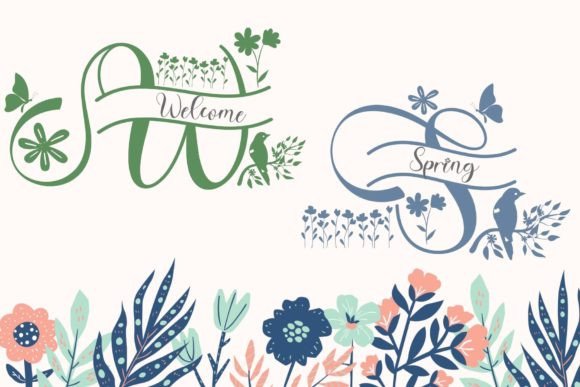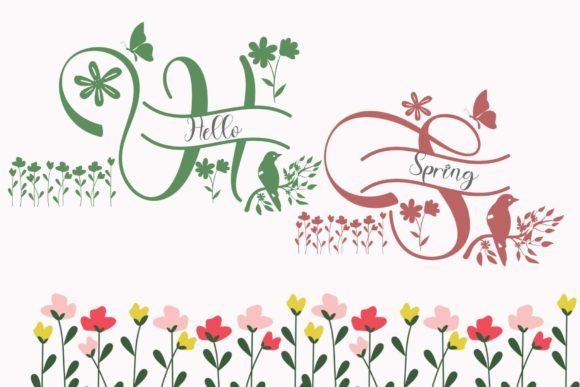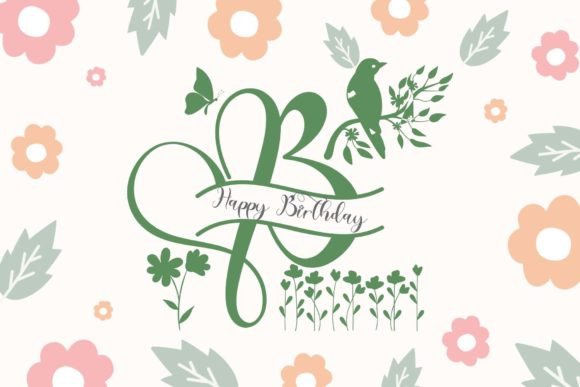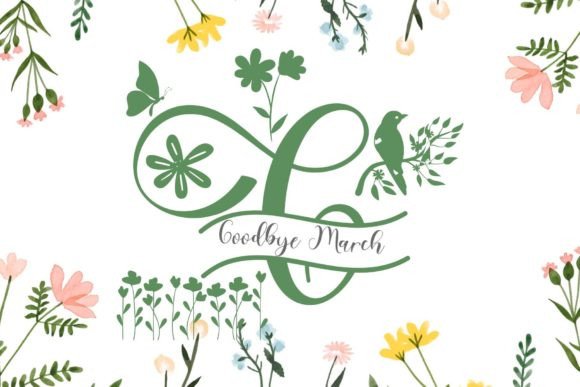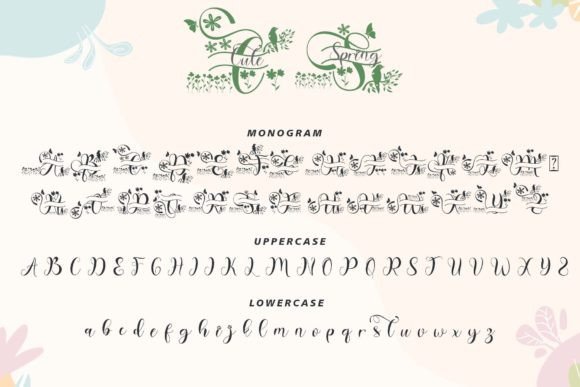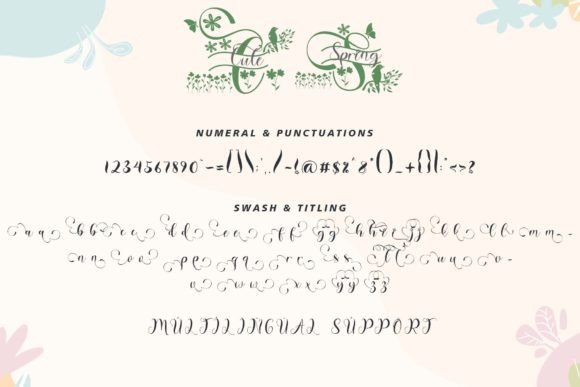
The Sweetest Addition to Your Font Library: Cute Spring Monogram Font
I’ll never forget the moment I stumbled upon the perfect font for a spring-themed project. I was working on a whimsical garden party invitation, and my design was feeling flat. I had a vision of something fresh, playful, and utterly charming. That’s when I discovered the Cute Spring Monogram font. It was love at first sight! 💕
This handwritten font, beautifully crafted into a monogram and adorned with birds, flowers, and butterflies, instantly elevated my design. The best part? It’s PUA encoded, making it incredibly easy to access all the amazing glyphs and ligatures. In this article, I’ll share my experience with this delightful font, its features, and how to make the most of it in your designs.
- ✨ Unique and charming monogram designs perfect for spring and Easter-themed projects
- ✅ PUA encoded for easy access to glyphs and ligatures
- 🎨 Highly versatile and can be used for a variety of design projects, from invitations to branding
- 🌸 Beautifully crafted with attention to detail, adding a touch of whimsy to any design
While the Cute Spring Monogram font is incredibly charming, there are a few minor quirks to be aware of:
- ⚠️ Some glyphs and ligatures may require a bit of experimentation to get the desired look
- 🤔 Limited use outside of spring and Easter-themed projects, as the design is quite seasonal
The Cute Spring Monogram font was crafted with love and inspiration from the beauty of nature. Imagine a designer, sitting in a lush garden, surrounded by blooming flowers, birds chirping, and butterflies fluttering about. This font is a reflection of that serene and whimsical atmosphere, perfect for capturing the essence of spring.
Q: What is PUA encoding, and how does it benefit font users?
A: PUA (Private Use Area) encoding allows font users to access glyphs and ligatures easily, making it simpler to use the font in various design projects.
Q: Is the Cute Spring Monogram font suitable for non-spring themed projects?
A: While the font is designed with spring in mind, its unique charm can be applied to various design projects. Feel free to experiment and see how it fits your design needs!